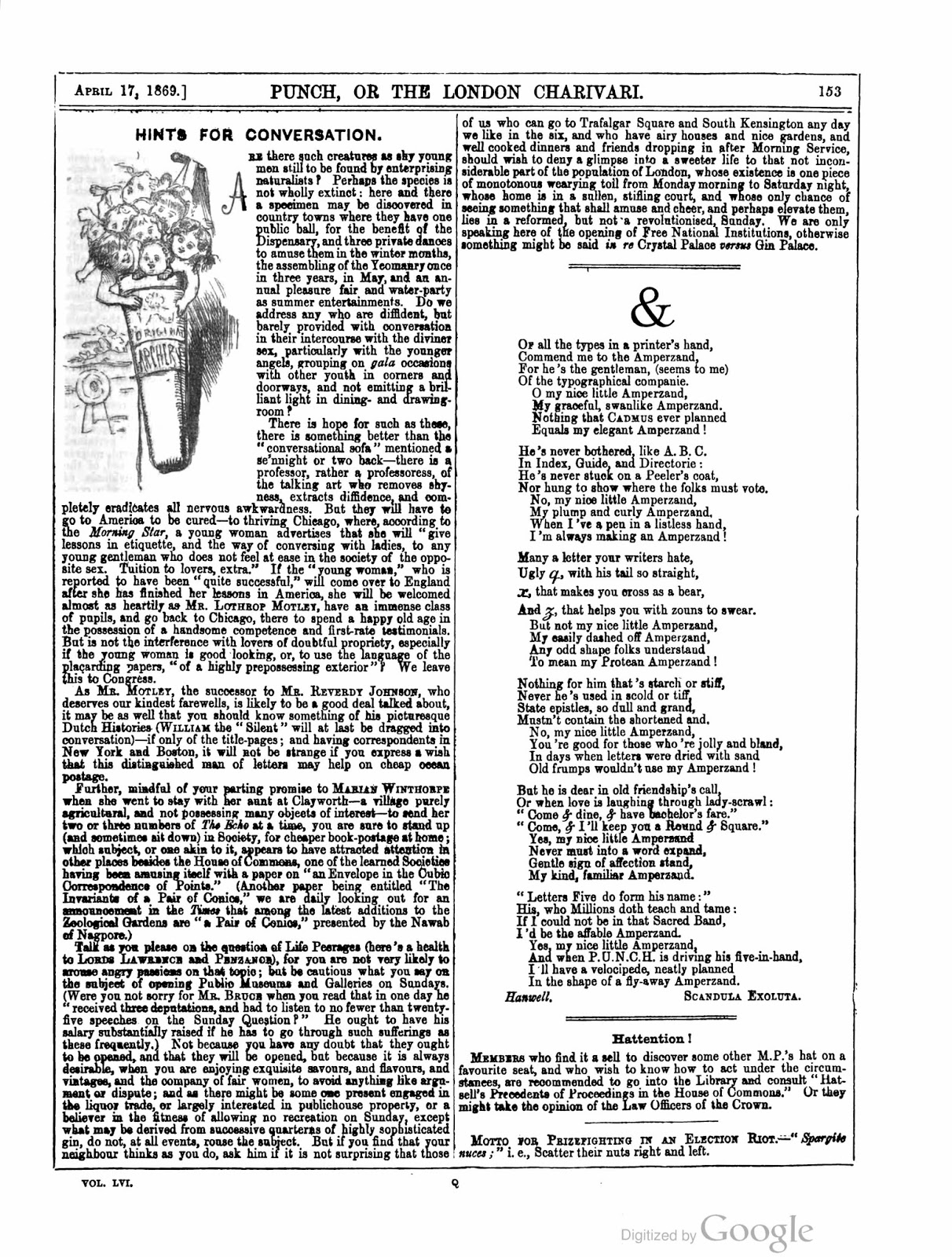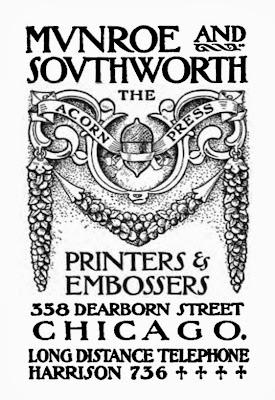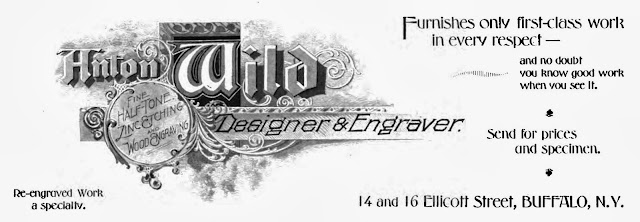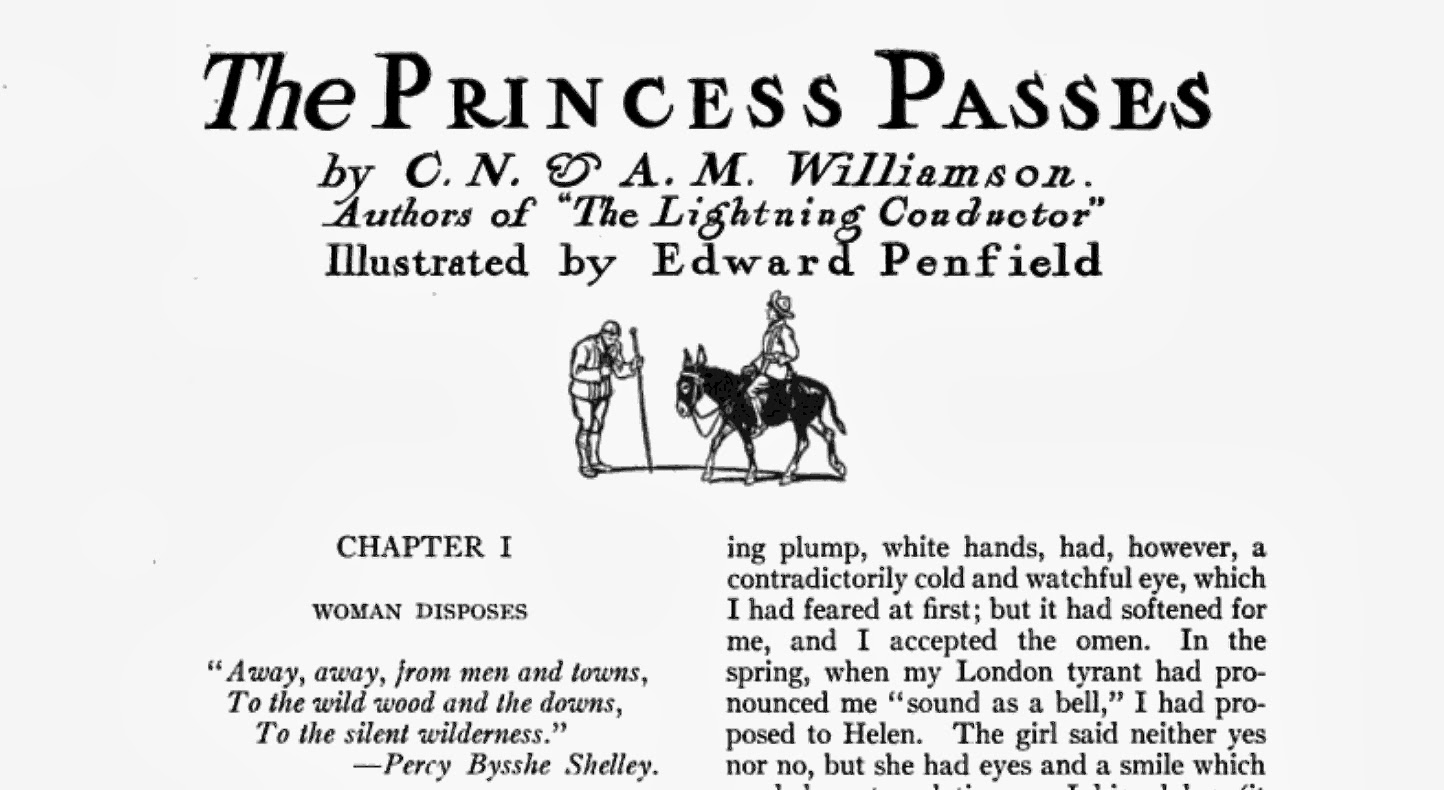
Street Scene: Kramerbooks & afterwords
• W A S H I N G T O N , D C •
& a.k.a. Song of the &
Punch
April 17, 1869
&
Of all the types in a printer’s hand,
Commend me to the Amperzand,
For he’s the gentleman (seems to me)
Of the typographical companie.
O, my nice little Amperzand,
My graceful, swanlike Amperzand;
Nothing that Cadmus ever planned
Equals my elegant Amperzand!
He’s never bothered, like A.B.C.
In Index, Guide, and Directorie:
He’s never stuck on a Peeler’s coat,
Nor hung to show where the folks must vote.
No, my nice little Amperzand,
My plumb and curly Amperzand.
When I’ve a pen in a listless hand,
I’m always making an Amperzand!
Many a letter your writers hate,
Ugly q, with his tall so straight,
x, that makes you cross as a bear,
And z, that makes you with zouns to swear.
But not my nice little Amperzand,
My easily dashed off Amperzand,
Any odd shape folks understand
To mean my Protean Amperzand!
Nothing for him that’s starch or stiff,
Never he’s used in scold or tiff,
State epistles, so dull and grand,
Mustn’t contain the shortened and.
No, my nice little Amperzand,
You’re good for those who’re jolly and bland,
In days when letters were dried with sand
Old frumps wouldn’t use my Amperzand!
But he is dear in old friendship’s call,
Or when love is laughing through lady-scrawl:
“Come & dine, & have bachelor’s fare,”
“Come, & I’ll keep you Round & Square.”
Yes, my nice little Amperzand
Never must into a word expand,
Gentle sign of affection stand,
My kind, familiar Amperzand.
“Letters Five do form his name:”
His, who Millions doth teach and tame:
If I could not be in that Sacred Band,
I’d be the affable Amperzand.
Yes, my nice little Amperzand,
And when P.U.N.C.H. is driving his five-in-hand,
I’ll have a velocipede, neatly planned
In the shape of a fly-away Amperzand.
Hanwell. Scandula Exoluta.
Reprinted in its entirety or in part in many publications
Every Saturday
May 15, 1869
Littell’s Living Age
June 19, 1869
Wit and Humour
(Poems from “Punch”)
Shirley Brooks
Bradbury, Agnew, & Co., 1875
The Christian Union
October 2, 1890
The Gentleman’s Magazine
November 1892
Historic Magazine and Notes and Queries
November-December 1902
The Song of the Ampersand
T. P.’s Weekly
April 10, 1903
A Song of the &
Ampersand Cocktail
Old Waldorf Bar Days
With the Cognomina and Composition of Four Hundred and Ninety-one Appealing Appetizers and Salutary Potations Long Known, Admired and Served at the Famous Big Brass Rail; Also, a Glossary for the Use of Antiquarians and Students of American Mores
Albert Stevens Crockett
Aventine Press, 1931
page 117: Ampersand
Two dashes Orange Bitters
One-third Brandy
One-third Tom Gin
One-third Italian Vermuth [sic]
Stir; strain; two dashes of Curacao on top
The American Printer
March 1937
page 44: Re: Ampersand Cocktail
As promised on page 26, we give below ingredients and directions for making the Ampersand Cocktail, formerly a favorite in the barroom of the old Waldorf-Astoria Hotel at Fifth Avenue and 34th Street....
The ingredients are:
Two dashes orange bitters
One-third brandy
One-third Tom gin
One-third Italian vermouth
Two dashes of Curacao on top
Directions: Put the ingredients into a shaker in the order named, then add cracked ice—shake vigorously and strain into the cocktail glass and serve promptly. The more you shake it, the weaker it gets.
Special Editorial P.S. The one we got at the Ampersandinner must have been shaken early. It was potent!
Lettering: 100 Ampersands, Part 4
201. A. Zeese & Co.
The Inland Printer
October 1894
202. Blomgren Brothers & Co.
The Inland Printer
The American Hatter
August 1921
293. Schreiber & Co.
Fur Age
June 1920
294. A&W
Fur Age
June 1920
295. Kaye & Einstein
Fur Age
June 1920
296. Schulang & Sons
Fur Age
June 1920
297. Trieger & Drucker
Fur Age
June 1920
298. Berger & Co.
Fur Age
June 1920
299. Bill & Andy
The Film Daily
May 1931
300. Silks & Straws
The American Hatter
November 1921